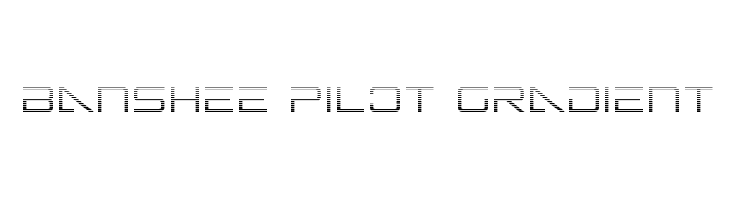
A bold, angular, and italicized font with a futuristic and geometric design.
A bold, angular font with a futuristic and dynamic style.
A bold, angular font with a futuristic and geometric design.
A futuristic, angular italic font with a sleek and modern design.
A bold, abstract font with an ancient, alien-like aesthetic.
A futuristic, angular font with a 3D shadow effect, ideal for sci-fi themes.
A bold, futuristic font with angular, geometric shapes and a distinct, alien-like appearance.
A futuristic, italicized font with sharp angles and fluid curves, perfect for modern, dynamic designs.
A futuristic, angular font with a shadow effect and bold geometric shapes.
A bold, futuristic font with rounded edges and a geometric style.
A futuristic, bold outline font with rounded, continuous lines.
A futuristic, geometric font with clean lines and angular shapes.
A geometric, angular font with a futuristic and bold design.
A bold, geometric font with sharp angles and a futuristic style.
A bold, italicized font with sharp, angular edges and a futuristic style.
A sharp, angular italic font with a futuristic and dynamic style.
A modern, geometric font with sharp edges and consistent spacing.
A bold, geometric font with sharp, angular edges and a modern aesthetic.
A bold, italicized font with sharp, angular edges and a modern aesthetic.
A sharp, italicized font with a futuristic and dynamic style.
A bold, geometric font with thick, block-like shapes for a strong, modern look.
A bold, 3D geometric font with a futuristic and digital style.
A bold, italic, 3D font with a futuristic and geometric design.
A bold, geometric font with a block-like, outlined design.
A bold, italicized font with a futuristic, geometric design.
A bold, condensed font with geometric shapes and a modern, industrial feel.
Bold, condensed, and italicized with a modern, angular design.
A bold, wide, and modern font with a strong, geometric design.
A bold, expanded, and italicized modern font with strong visual impact.
A bold, geometric, and extra-condensed font with a powerful presence.
A bold, extra-condensed italic font with a modern, futuristic style.
A bold, futuristic font with a unique striped pattern and dynamic visual effect.
A bold, italic font with a futuristic gradient line design.
A bold, futuristic font with a halftone effect and block-like forms.
A bold, italicized font with a futuristic halftone effect, ideal for modern designs.